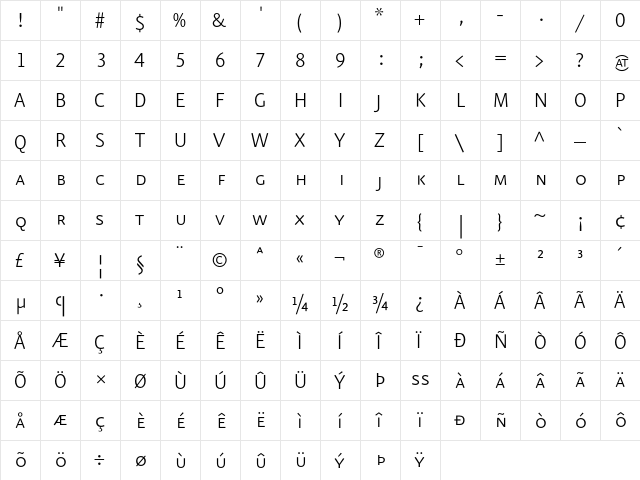
Eureka Sans Light Caps Font Preview
Eureka Sans Light Caps
Eureka Sans Light Caps Font Details
| Style | Light Caps |
Design Context for Eureka Sans Typeface
Eureka Sans is a composed and adaptable typeface that performs quietly and consistently across a wide range of design contexts. The delicate stroke weight brings airiness and refinement to layouts.
Pro Tip: Pair Eureka Sans with a font of contrasting weight or personality to build a more expressive typographic hierarchy.